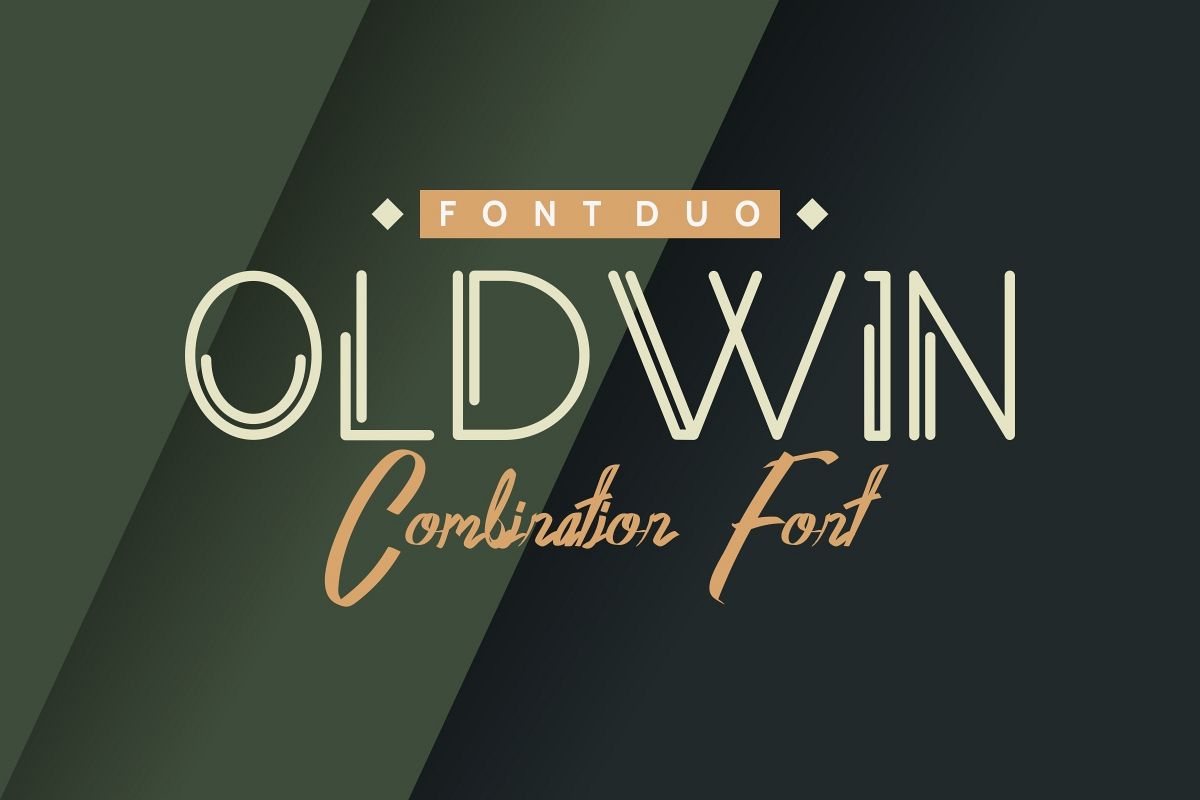
Oldwin
Oldwin-Regular
Oldwin-Script
Hi Everyone! Introducing our newest font : Oldwin ! Modern + Script Font!This is a new modern decorative font with calligraphy script handmade font. It has a unique, elegant, strong, futuristic, stylish, sophisticated, complex, speed, classic pen brush style, and square decorative sans serif.Perfect for branding, logo, stationery, business card, signage, flyer, brochure etc. There are many industries that is suitable for this font : construction, real estate, services, law firm, modern, game, apps, technology, travel, hotel etcSild is a sophisticated styling font which will be perfect for branding, logo, photography and signature. It is so elegant, classy, strong and beautiful.This font will Work on PC & Mac with Simple installations. Accessible in the Adobe Illustrator, Adobe Photoshop, Adobe InDesign, even work on Microsoft Word. It’s also PUA Encoded Characters – Fully accessible without additional design software.Plus it support multi-languagePurchase with confidence! =)